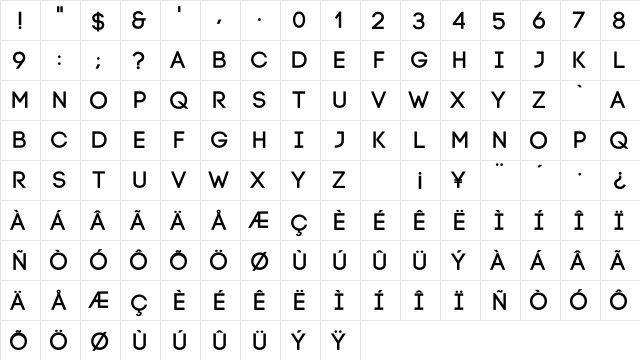
Code Bold Regular Font Preview
| Foundry | Svetoslav Simov |
| Designer | Svetoslav Simov |
Design Context for Code Bold Typeface
Code Bold uses fixed-width spacing throughout, giving it the structured, systematic character associated with coding environments and technical documentation. Its bold stroke weight gives it real presence on the page.
Well-suited to data-driven dashboards, coding tutorials, and any design that wants to reference the world of programming.
Pro Tip: Use Code Bold with slightly increased line-height for extended reading — fixed-width spacing can feel dense in longer passages without extra breathing room.